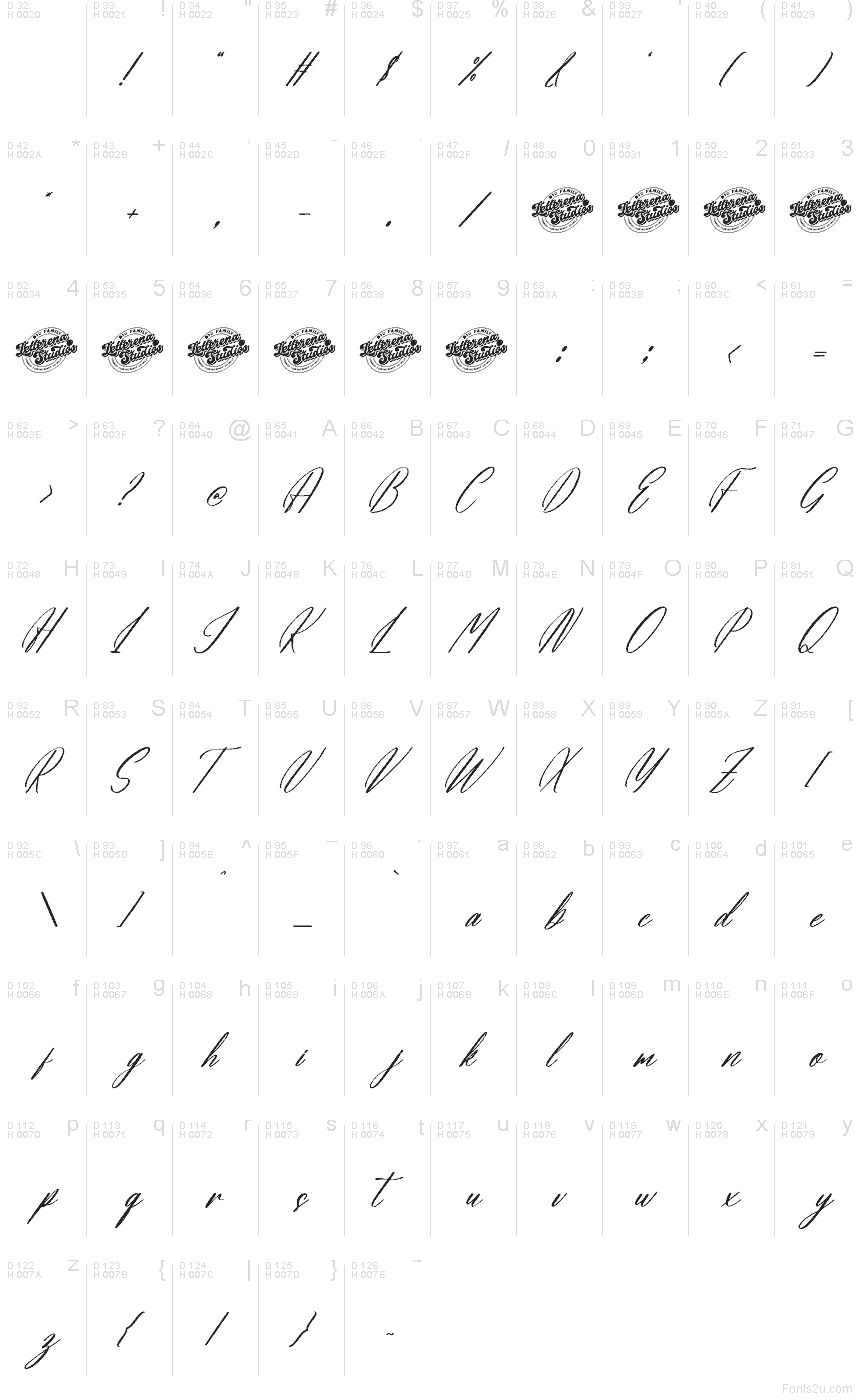
Hadinesta Blarfhine DEMO VERSIO Italic
Hadinesta Blarfhine Italic font by Letterena Studios is a free handwritten script typeface with the polish of careful penmanship. Long, sweeping strokes and tight, delicate curves give it that “ink still drying” feel, while the consistent slant keeps everything flowing in one graceful direction. It looks like it was written with a fine brush or nib pen—smooth, slightly dramatic, and effortlessly romantic.
Using Hadinesta Blarfhine Italic, you can bring a refined, personal touch to wedding invitations, save-the-date cards, boutique logos, product packaging, quote graphics, social media headers, and elegant name cards. This free font really shines when you give it space to breathe in larger sizes; pair it with a simple sans serif for body text to balance its ornate, looping forms.